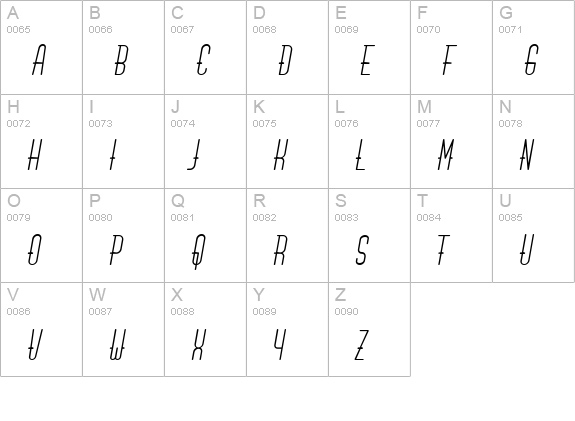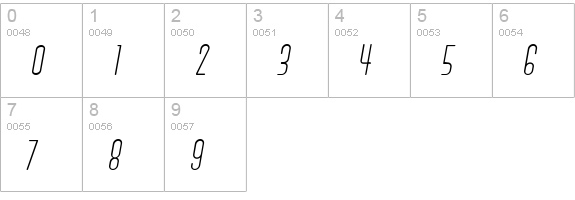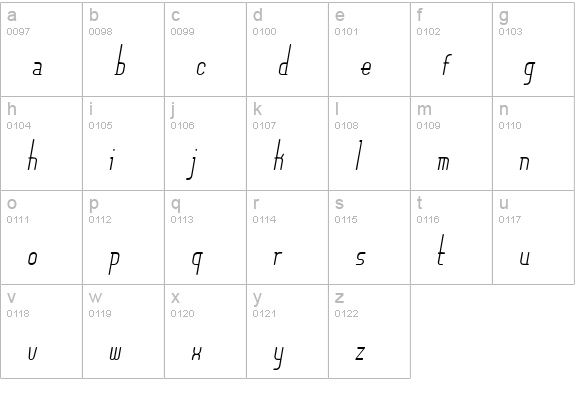
Centurylight Font Details
Centurylight is a gracefully elegant font that exudes a timeless charm. With its delicate curves and refined strokes, this font is perfect for adding a touch of sophistication to any design project. Whether you're creating wedding invitations, branding materials, or simply want to elevate your personal correspondence, Centurylight will add a touch of class and elegance. But what sets Centurylight apart from other fonts is that it is not only aesthetically pleasing, but it is also freely available to download at FontsMarket.com. That's right, you can now access the beauty and versatility of Centurylight without breaking the bank. This font offers a unique combination of style and accessibility, making it a must-have for designers, creatives, and enthusiasts alike. Designed with precision and attention to detail, Centurylight is a font that effortlessly captures the essence of sophistication. Its subtle curves and clean lines create a harmonious balance that is pleasing to the eye and easy to read. Whether you're using it for headlines, body text, or even logos, Centurylight will make your content stand out with its refined and refined appeal. With its timeless elegance and free availability on FontsMarket.com, Centurylight is truly a font that offers both style and accessibility. Download it today and unlock a world of design possibilities.